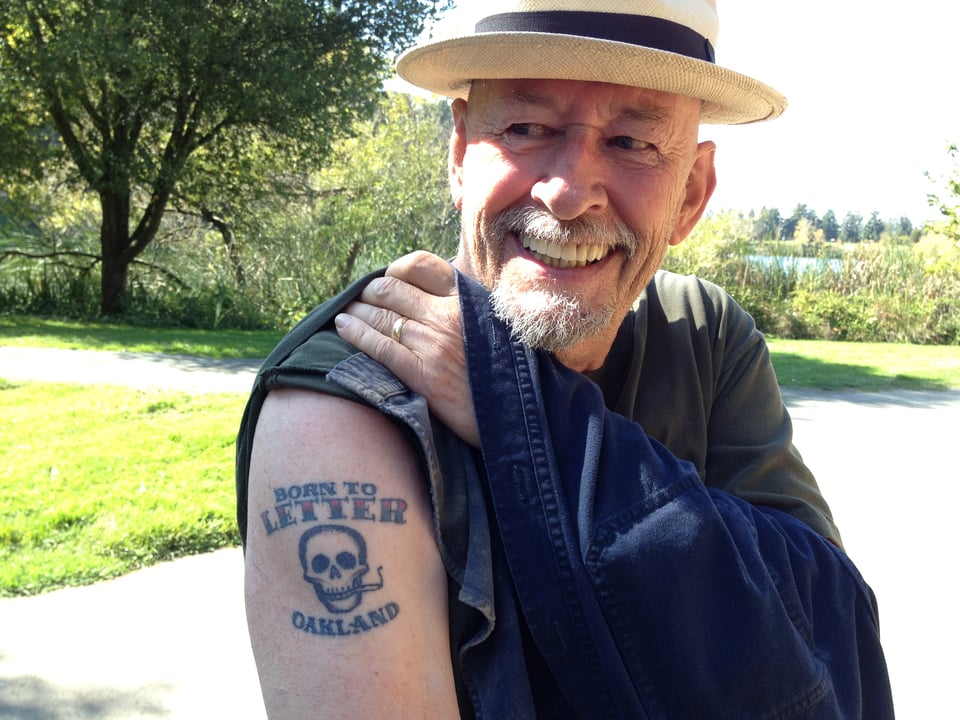
In this issue: XYZ in New York, pt 2, reflections on Typographics, Jim Parkinson’s legacy, and finding hope in community.
On the ground at Typographics
In the eleven years of Typographics, Cooper Union’s annual festival for people who use type, Ben and I have hardly missed a year. It’s an excellent opportunity to reconnect with our peers in typeface design, clients, and former students. This year I was there with Zrinka, but sadly, Ben’s schedule kept him away this time, and Tyler couldn’t make it.
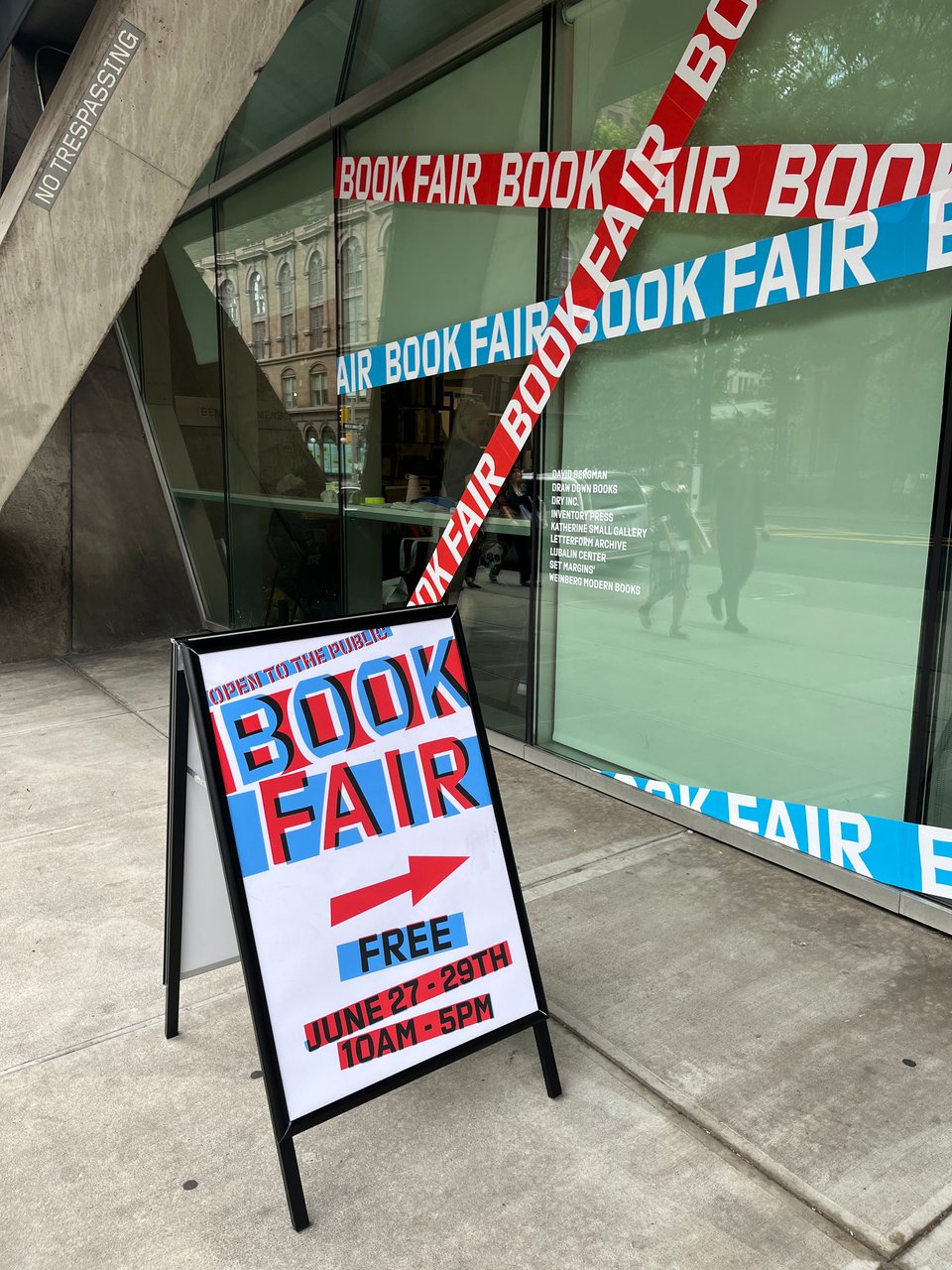
Walking through Cooper Union and seeing my underused typeface Export making a big impression throughout the festival’s identity was surreal. It was a full-circle moment on the campus where I spent four years teaching at the Type@Cooper program I helped start. Thanks to Nick Sherman for choosing Export and pairing it beautifully with Tick by Cyrus Highsmith (my former teacher) and Paragraf by TienMin Liao.
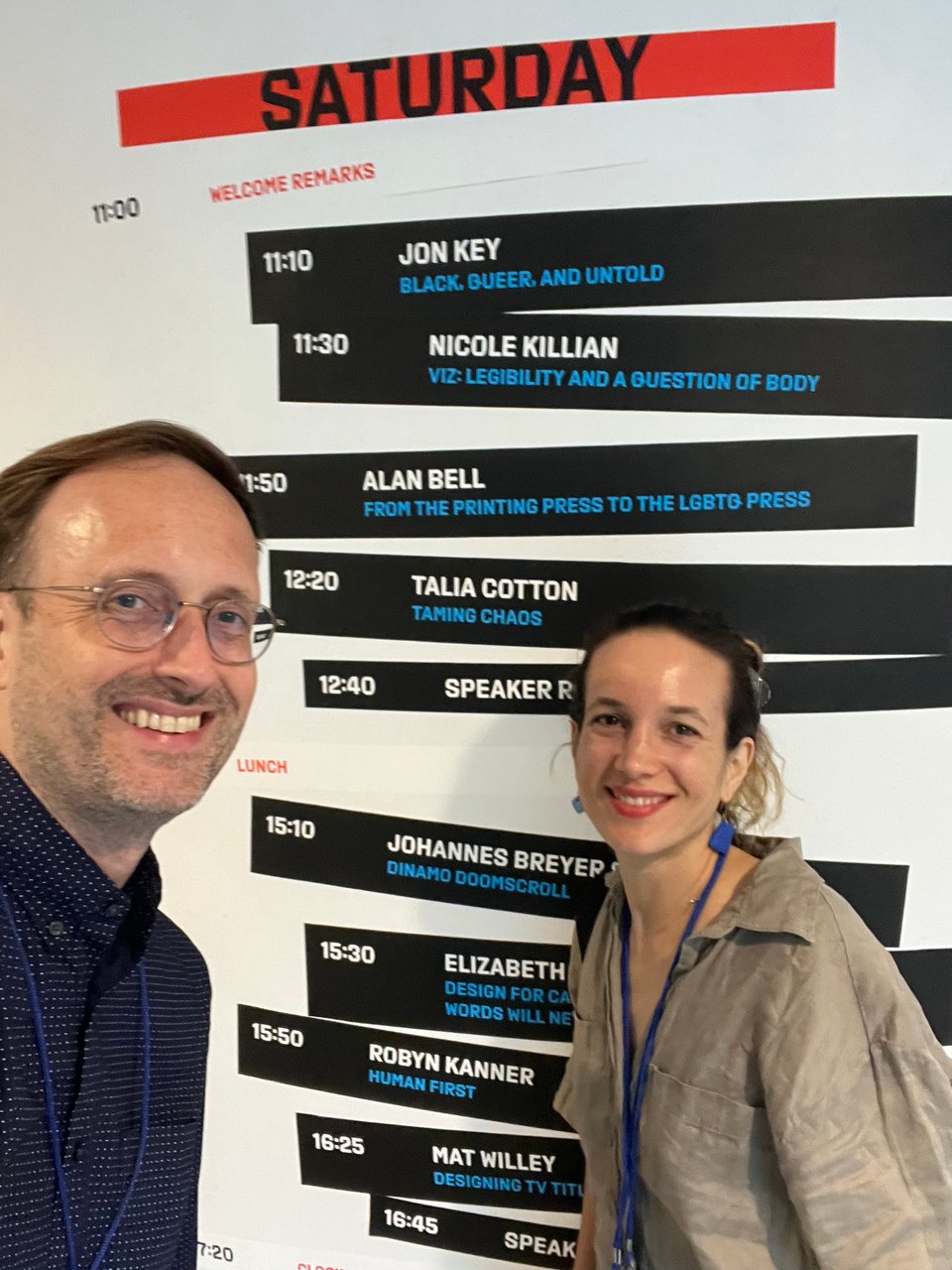
Typelab
Typelab offered a casual adjunct to the main stage, with more informal presentations where you can actually talk with the speakers. It was great to catch presentations by my former students Greg Gazdowicz and CJ Dunn. Amy Papaelias & Nina Paim spoke about the much-awaited Alphabettes Soup book, which XYZ sponsored. Congrats to Frederik Berlaen—the creator of our beloved Robofont—who just launched Font Club Belgica and presented the process behind the typeface Filter.
Main stage
There were more talks than we can discuss in detail here, but I’ll shout out three memorable moments.
After sharing his studio’s gorgeous design system and book for the Islamic Arts Biennale in Jeddah, Wael Morcos schooled us on the life and work of Palestinian-American graphic designer-artist-activist Rajie Cook. Did you know who designed the iconic DOT pictograms?
I can’t stop thinking about nicole killian’s installation “between a book and a soft place,” which included a human-scale version of foam book wedges (which we know well from library special collections) topped with a cloth book in which one can climb between the pages.
Alan Bell’s talk traced his meandering path through tabletop letterpress printing, typesetting closing credits for Star Trek, and founding the groundbreaking queer publications Gaysweek and BLK.
There were plenty of other interesting talks, but most of all, I enjoyed the more spontaneous moments of catching up with folks in the liminal spaces of Cooper Union and its surrounding area.
Remembering Jim Parkinson
While I was at Typographics, brilliant lettering and type designer Jim Parkinson passed away. I was grateful to be there, where I could talk with a few people who knew him better than I did, including Stephen Coles, who wrote a loving obituary for him on Typographica.
The last time I was in the Bay Area (2012!) Stephen organized a type-people picnic gathering. That’s the one time I met Jim myself, and I snapped the photo below of his unforgettable tattoo. He was an incredibly kind and humble person. I recall stumbling into giving him some advice on his typeface in process, which didn’t seem quite right in my relative youth.
My lettering work for the Rolling Stone logo redesign was directly built off of three previous iterations Jim drafted. Even though I didn’t get to work directly with him, the process of studying his work closely enough to decode and reconstruct it digitally felt like an intensive workshop in his methods. Jim’s work and his warm presence will be missed. My condolences to those of you who were close with him.
Ears, eyes, heart
Elisapie Isaac
While my mother was visiting us in Beacon recently, my partner and I drove her to Tivoli an hour north, for a concert by Inuk-Canadian singer-songwriter Elisapie (ᐃᓕᓴᐱ). Her singular take on a range of familiar pop songs (and some originals) mostly sung in Inuktitut left me energized and entranced by the language. You can hear more on her album Inuktitut (ᐃᓄᒃᑎᑐᑦ) or catch her live in one of her upcoming tour dates in Canada.
Baghdad Modern Art Group
Before the show, we visited the Bard College Hessel Museum for their fantastic Baghdad Modern Art Group exhibition. The Arabic posters below blew me away, adding to my excitement as I embark on my first Arabic typeface collaboration. (More on that soon, I hope!) I was also taken by Jawad Saleem’s paintings. The show runs through October, and is well worth a stop.
Gender affirming care saves lives
It’s entirely possible that you need to own a heavy metal-style shirt with that true statement, lettered by multi-talented lettering/type designer and clinical counselor Phædra Charles—a fundraiser for a Colorado nonprofit for affirming therapy and community care.
Find your people
I’m grateful to have a business partner like Ben, who chose to close out our last installment by getting real about the state of the world, which—let’s face it—has brought a cloud of despair over many of our lives.
Although ICE raids have continued in my area, the community response has been outstanding and heartwarming. Due to the hard work of my neighbors, we now have a rapid-response chat network, fundraisers for families of the recently abducted, and frequent informational sessions and resource distribution. Even Beacon’s city government has given me a moment of pride by standing by its previous resolution not to support ICE in its efforts.